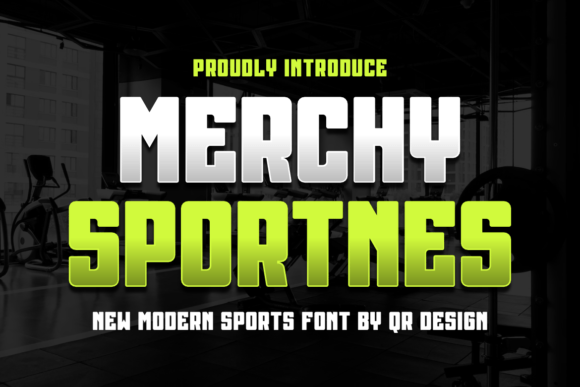
Enter Merchy Sportnes, an audacious sans-serif font that exudes boldness and authenticity. Crafted by qrdesignstd, Merchy Sportnes is not just another font; it's a statement. It's a font that demands attention and leaves a lasting impression.
With Merchy Sportnes, you can create logos that radiate power and confidence. Its thick, assertive strokes convey a sense of strength and determination. Whether you're designing a logo for a sports team, a fashion brand, or anything in between, Merchy Sportnes will deliver the impact you crave.
But Merchy Sportnes isn't just limited to logos. Its versatility shines in various branding projects. Imagine your t-shirts, posters, and flyers emblazoned with Merchy Sportnes, captivating the eyes of your audience. The font's modern, athletic aesthetic will add an extra layer of excitement to your designs.
And for all you e-sports enthusiasts out there, Merchy Sportnes is the perfect choice for creating visually stunning e-sports content. Its sharp lines and dynamic curves will bring your streams, videos, and graphics to life.
The applications of Merchy Sportnes are endless, making it a must-have tool in any designer's arsenal. Its ability to transform ordinary designs into extraordinary masterpieces is truly remarkable.